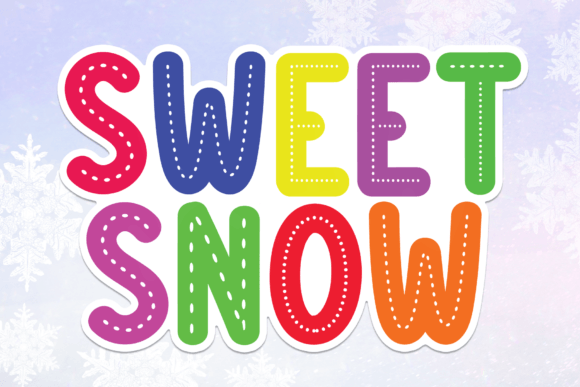
Introducing Sweet Snow Font, where dreams and artistry harmonize. Step into a world where words awaken emotions and designs come alive. Our typeface is a symphony of playful boldness, an enchanting dance of characters that captivates the eye and stirs the heart.
Visualize your creative visions transformed into reality, with Sweet Snow Font as your trusted companion. Whether you're designing enchanting holiday cards or crafting cheerful posters, our font family will infuse your projects with a touch of whimsy and boundless charm.
Our Sweet Snow Font is more than just a collection of letters and symbols; it's a gateway to a realm of creativity where you're the maestro of your own artistic symphony. Unleash your imagination and embark on a journey where every stroke of your design tells a captivating tale.
With Sweet Snow Font, your designs will resonate with an emotional depth that captivates your audience. Spread joy with jubilant holiday greetings, or evoke laughter with whimsical designs that lighten up any space. The possibilities are as endless as your imagination.
But Sweet Snow Font is not just about aesthetics; it's also a testament to versatility. Whether you're a seasoned designer or just starting your creative journey, our font family will guide you with ease. Its intuitive design and seamless flow make it the perfect choice for a wide range of projects.
Dive into the world of Sweet Snow Font and let your creativity soar. Transform your ideas into visual masterpieces, leaving a lasting impression on your audience. Make a statement with your designs, expressing your unique style and vision with every stroke of your creation.
Sweet Snow Font beckons you to unlock the boundless realm of imagination, where your artistic aspirations take flight. It's not just another font; it's a key to a world of wonder, where your designs will captivate and inspire. Embrace the playful boldness of Sweet Snow Font and let your creativity flourish.